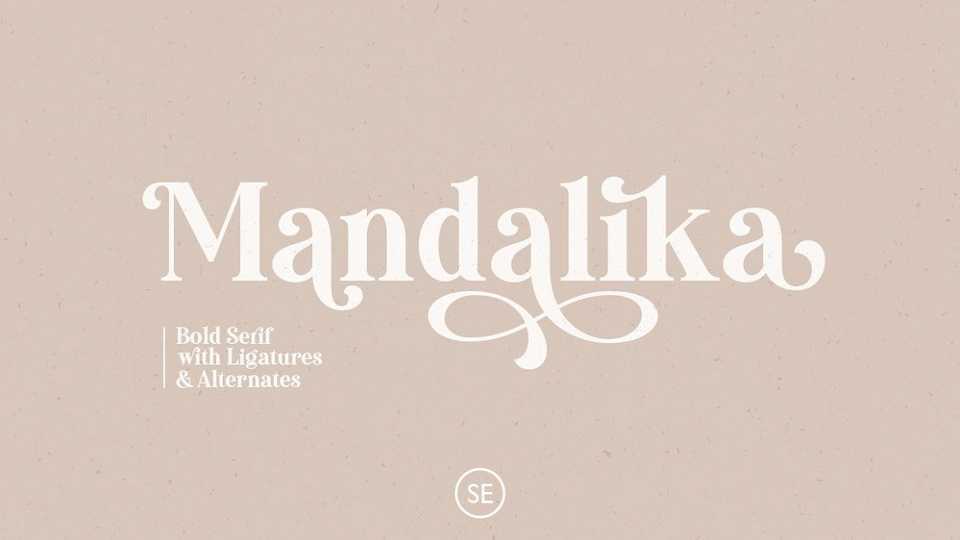
Download Mandalika font, a bold and elegant serif typeface with a bunch of ligatures and alternates that will make your presentation or logo even more stunning and stand out.